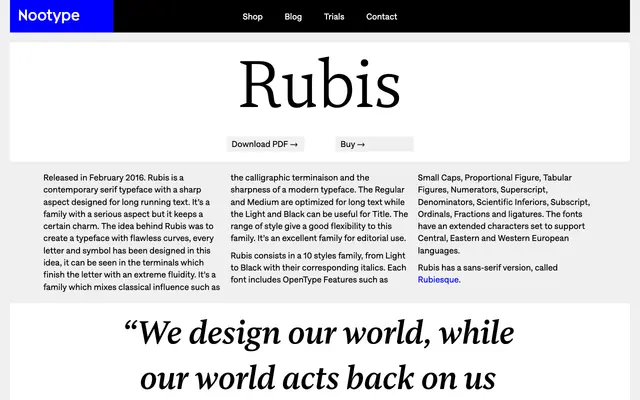
Rubis
A ten-style contemporary serif from 2016, designed for long-form text with sharp terminals and fluid curves drawn from calligraphic tradition.
Released by Nootype in February 2016, Rubis spans five weights from Light to Black, each with a matching italic, mixing calligraphic terminal forms with the crispness of a modern serif. Regular and Medium are optimised for body text, while Light and Black work at display sizes. OpenType features include small caps, proportional and tabular figures, fractions and ligatures, with extended character support for Central, Eastern and Western European languages.
Rubis blends calligraphic terminal forms with the sharpness of a modern serif, placing it between transitional and modern traditions with a sharp, fluid character suited to long text.